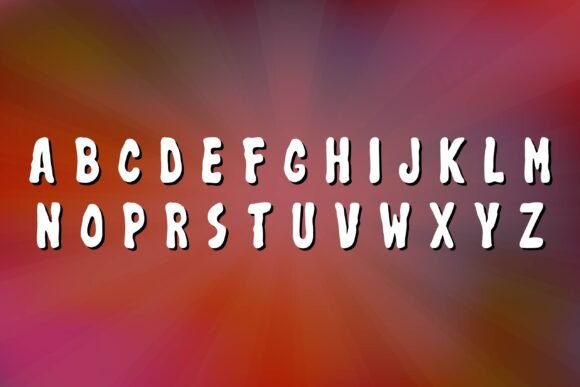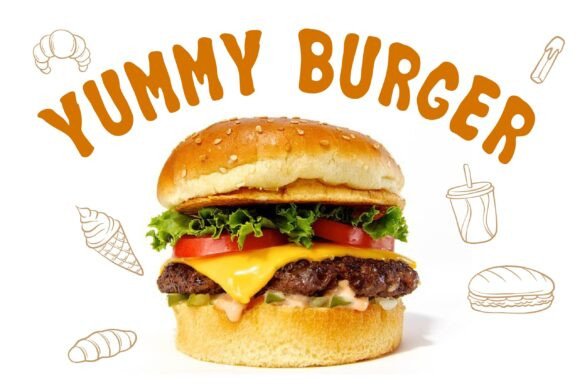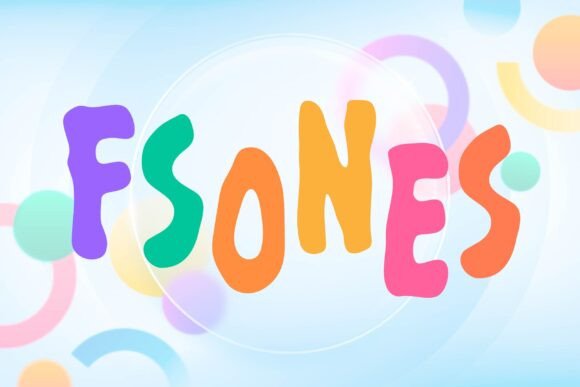
Introduction to Fsones Font
Introducing Fsones: a Gothic-crafted Stylish Decorative Font radiating playful Cartoon Quality.
Perfect for Movie titles, Cartoon names, Game titles, and T-shirt designs, Fsones captivates with its unique absence of lowercase letters Featuring 96 meticulously designed glyphs and 95 characters, this font delivers both beauty and functionality.